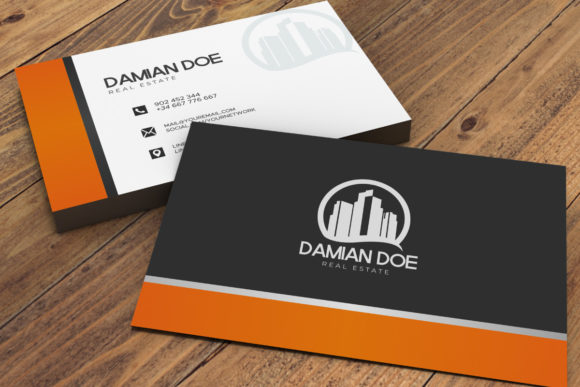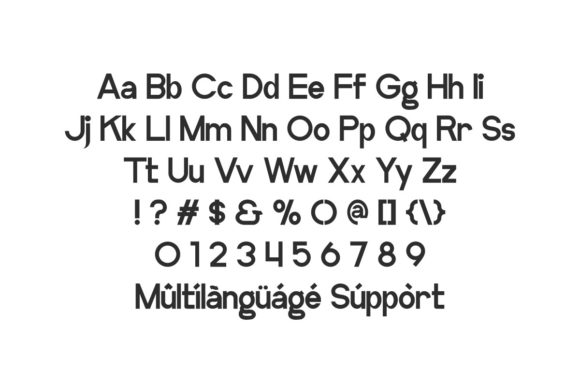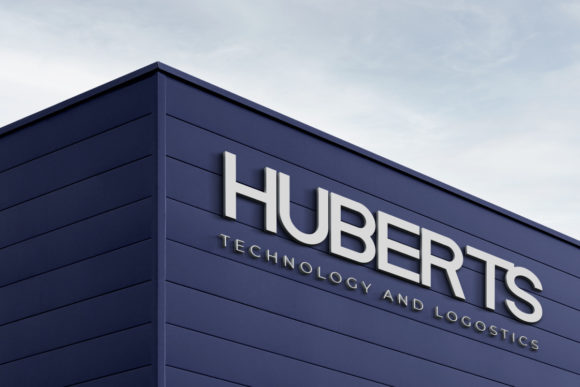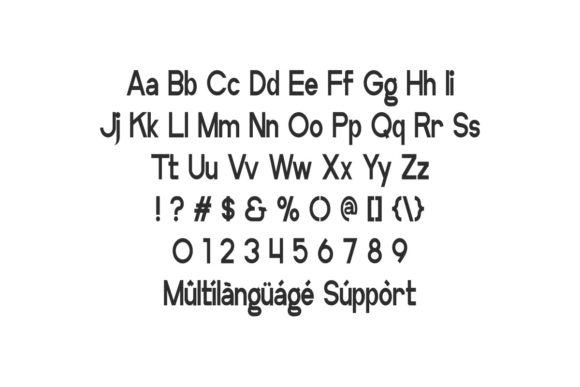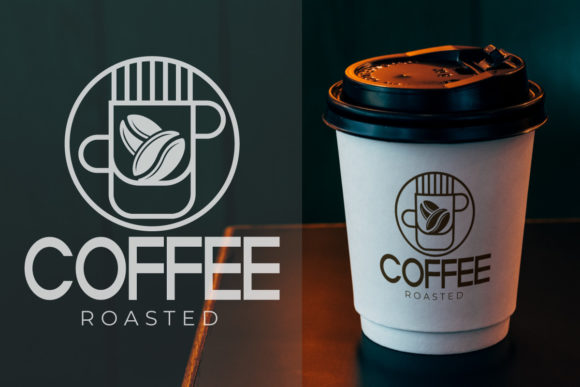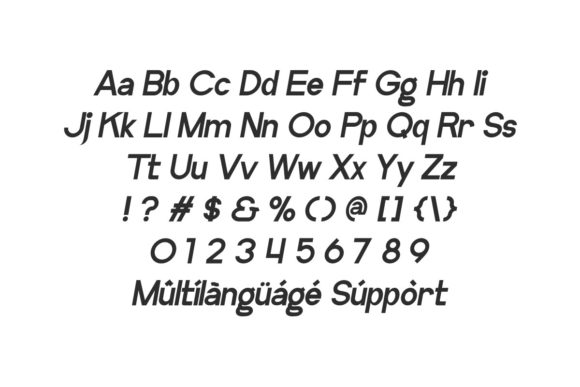
Unleashing Creativity with the Boreland Font
Remember that moment when you saw a logo, and it just clicked? The design was simple yet powerful, making you want to learn more about the brand. For designers, this is the holy grail – a visual representation of a brand’s essence. But have you ever wondered what makes a font truly stand out?
Meet the Boreland Font, a bold and beautiful sans serif font that’s perfect for a wide range of creative projects. From clothing to websites, and from films to food packaging, this font is a versatile tool for designers to bring their ideas to life. Its clean lines and modern aesthetic make it an ideal choice for any project that demands attention and clarity. With the Boreland Font, designers can create a lasting impression and elevate their designs to the next level.
Boreland Font Key Features
- Unique Characteristics: Boreland Font features a unique blend of modern and traditional design elements, including intricate details and subtle texture, giving it a distinctive and eye-catching appearance.
Boreland Font Review
Overall, I think the Boreland Font is a solid choice for designers looking for a clean and modern sans-serif typeface. ✨ One thing that works well is its versatility – it looks great in both headings and body text. It’s also highly legible, making it perfect for digital use. ✨ Another plus is the wide range of weights available, which allows for a lot of creative flexibility.
- Works well for digital use due to its high legibility
- Wide range of weights available for creative flexibility
- Looks great in both headings and body text
However, I do have some reservations about the font’s limitations. ⚠️ For one, it may not be the best choice for complex or dense text, as it can start to look a bit bland. Additionally, the font’s geometric design may not be to everyone’s taste – some people may find it too cold or sterile.
- May not be suitable for complex or dense text
- Geometric design may not appeal to everyone
Overall, I think the Boreland Font is a great choice for designers who want a clean and modern sans-serif typeface. While it may have some limitations, its versatility and legibility make it a solid addition to any design project.
Tips for Getting the Most Out of Boreland Font
Use Boreland Font for creating a vintage or distressed look in your designs.
Pair it with other fonts to create a unique and eye-catching combination.
Experiment with different font sizes and styles to add depth and interest to your text.
Boreland Font is ideal for:
Creating invitations and event materials with a vintage touch.
Designing logos and branding materials with a distressed look.
Adding a unique
Alternatives to Boreland Font for Designers
Open Sans is a modern sans-serif font that is highly legible and versatile. It is suitable for digital design, such as websites, mobile apps, and e-books. Open Sans is a great alternative to Boreland Font as it provides a clean and minimalist look without the cursive feel of Boreland Font.
Comparison to Boreland Font: While Boreland Font has a more elegant, handwritten feel, Open Sans is more modern and straightforward. Open Sans is also more suitable for digital use, whereas Boreland Font is more suitable for print materials.
Lato is a sans-serif font that is highly customizable and comes in multiple weights. It is suitable for various design applications, including websites, logos, and branding materials. Lato is a great alternative to Boreland Font as it provides a clean and modern look with a hint of sophistication.